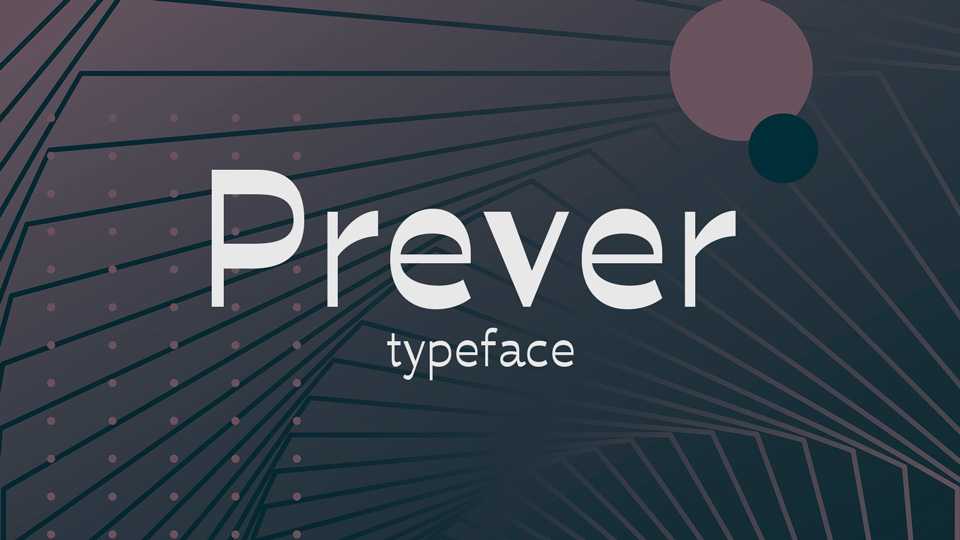
Download BP Prever typeface, a reversed-stress experimental font family available in two weights. Both weights work great in very small text sizes, while the bold is a dashing choice for display applications.
Designer: Backpacker